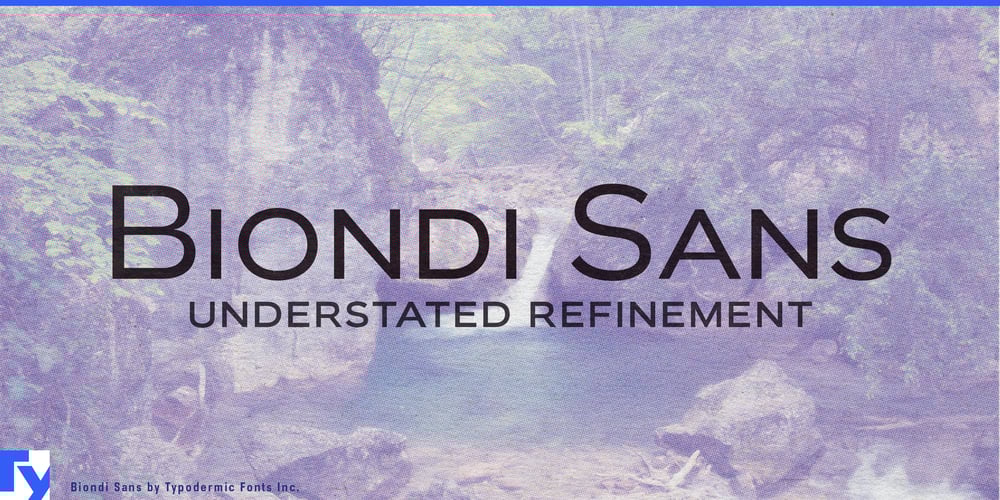
Biondi Sans Font Family was designed by Ray Larabie, Chikako Larabie and published by Typodermic. Biondi Sans contains 18 styles and family package options. Introducing Biondi Sans, a typeface that captures the refined spirit of early 20th-century design while speaking fluently to modern sensibilities. Inspired by Morris Fuller Benton’s iconic Copperplate, Biondi Sans reimagines the elegance of engraved nameplates for the digital age.This typeface isn’t just a nod to the past—it’s a bridge between eras. Its clean, geometric letterforms pay homage to the charm of old American architectural lettering while offering the clarity and versatility demanded by contemporary design. Each character is a testament to the enduring power of thoughtful typography. Biondi Sans comes equipped with small caps and nine weight options, including slanted styles, providing designers with a rich palette to work from. Whether you’re crafting a headline that demands attention or body text that whispers sophistication, Biondi Sans delivers with precision and grace.But Biondi Sans isn’t just about looking good—it’s about communicating effectively across borders. With support for a wide range of Latin-based European languages, from Afrikaans to Zulu, this typeface ensures your message retains its elegance in any tongue. Choose Biondi Sans when you need typography that speaks of heritage and innovation in the same breath. It’s equally at home gracing the pages of a high-end magazine, anchoring a corporate identity, or adding a touch of class to digital interfaces.In a world of fleeting trends, Biondi Sans stands as a beacon of timeless design. It doesn’t just catch the eye—it holds the gaze, inviting readers to appreciate the artistry in every curve and line.Experience the power of Biondi Sans and elevate your designs from merely current to genuinely classic. Because in the realm of typography, some impressions are meant to last forever.